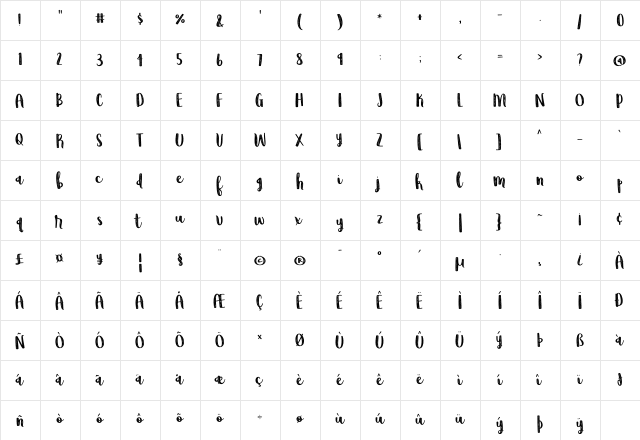
Wildemount Rough Regular
Design Context for Wildemount Rough Typeface
Wildemount Rough trades polish for personality, using distressed and eroded forms to bring grit and attitude to creative work.
Suited to punk-influenced zines, underground music branding, streetwear, and raw, anti-corporate design.
Pro Tip: Pair Wildemount Rough with intentionally raw or lo-fi design elements. Fighting against it with overly polished surroundings will undermine its personality.